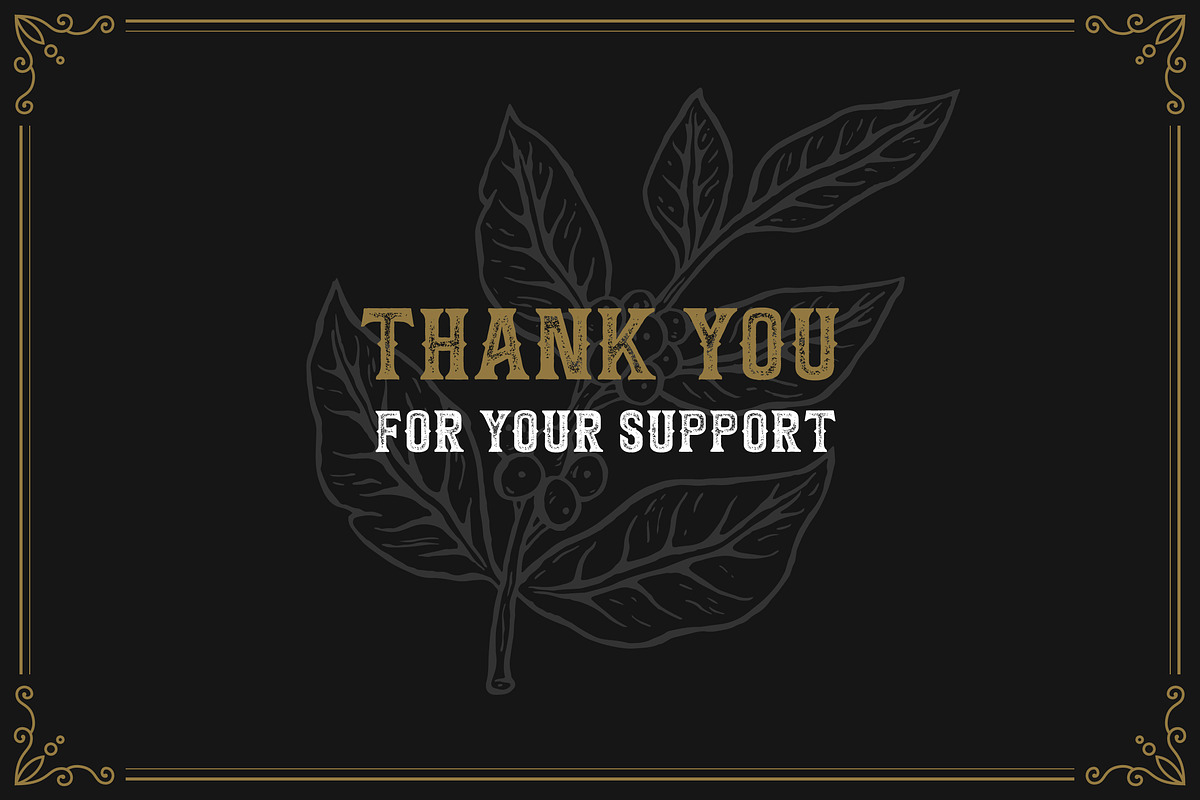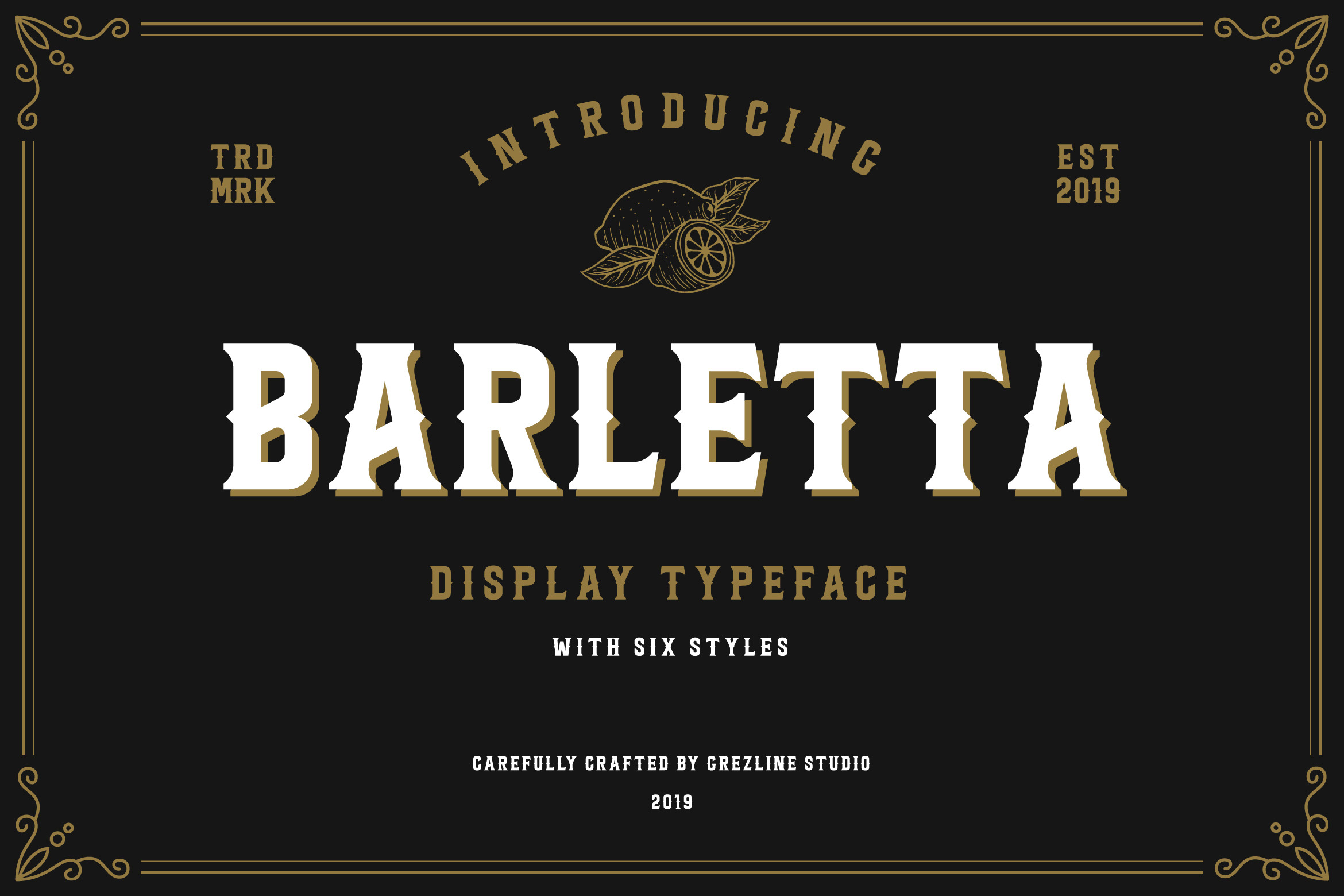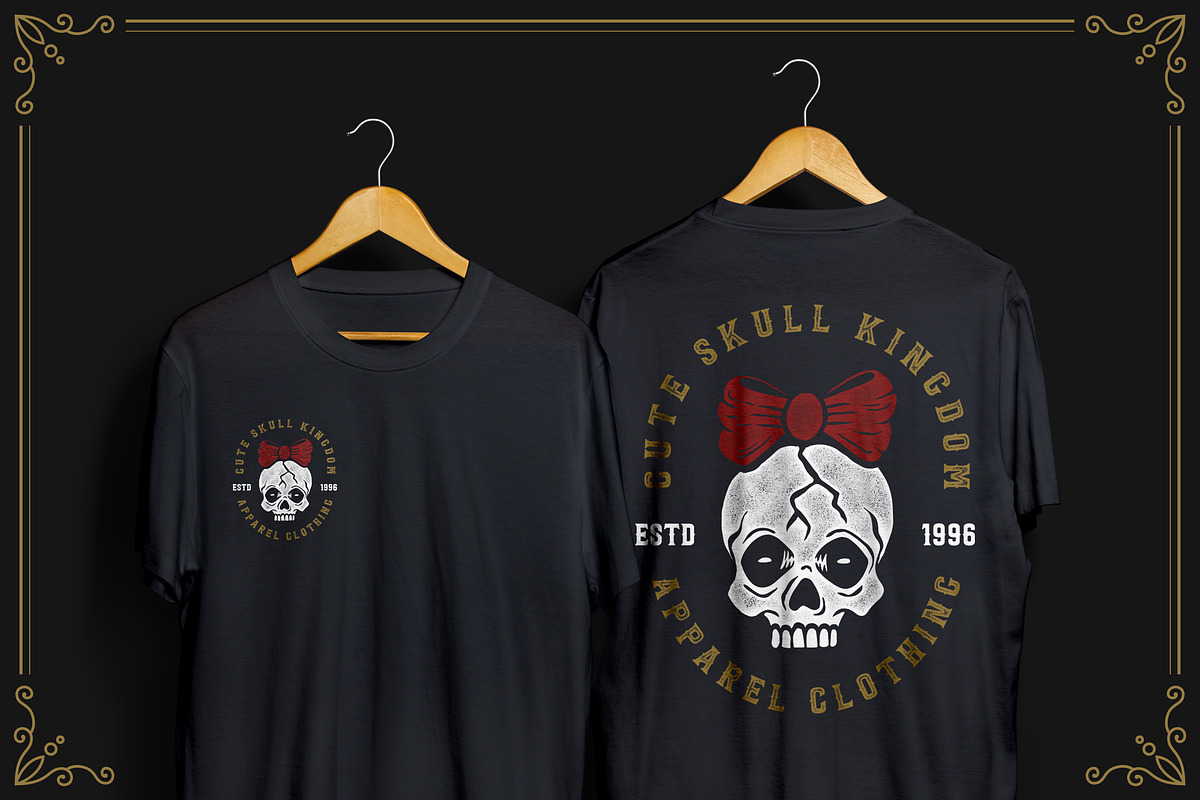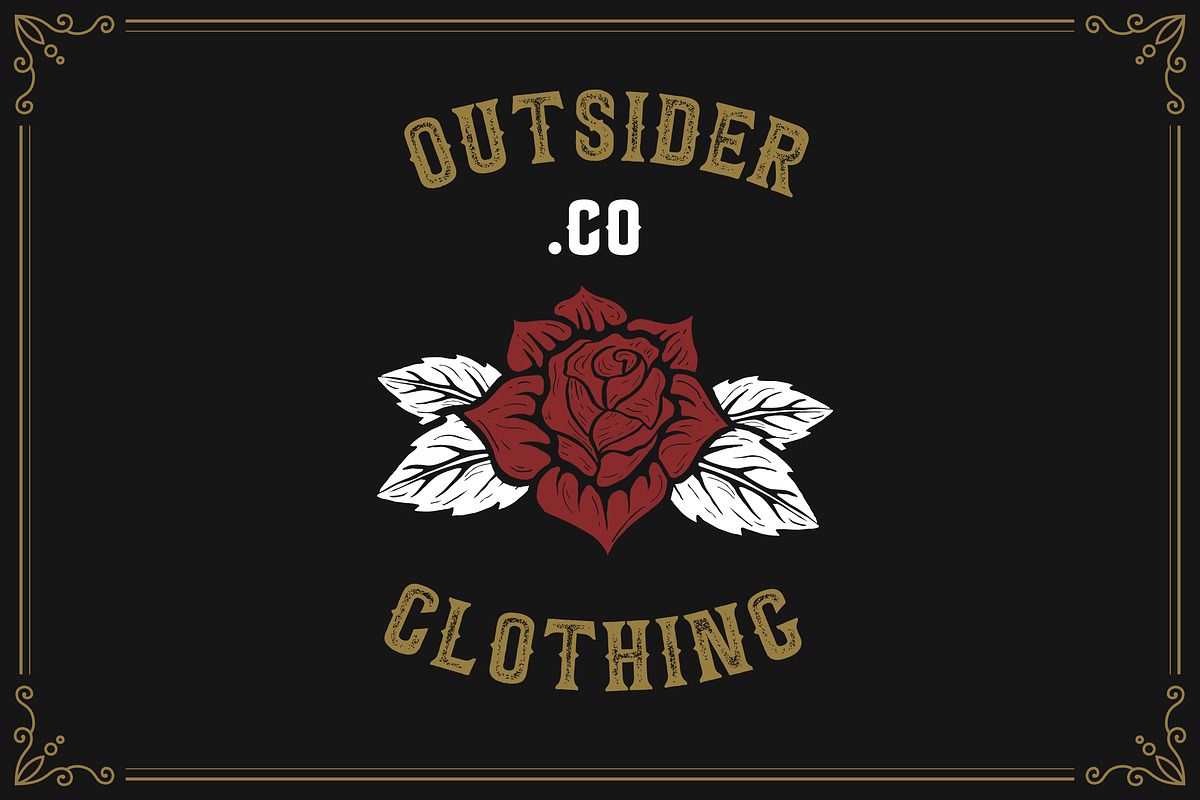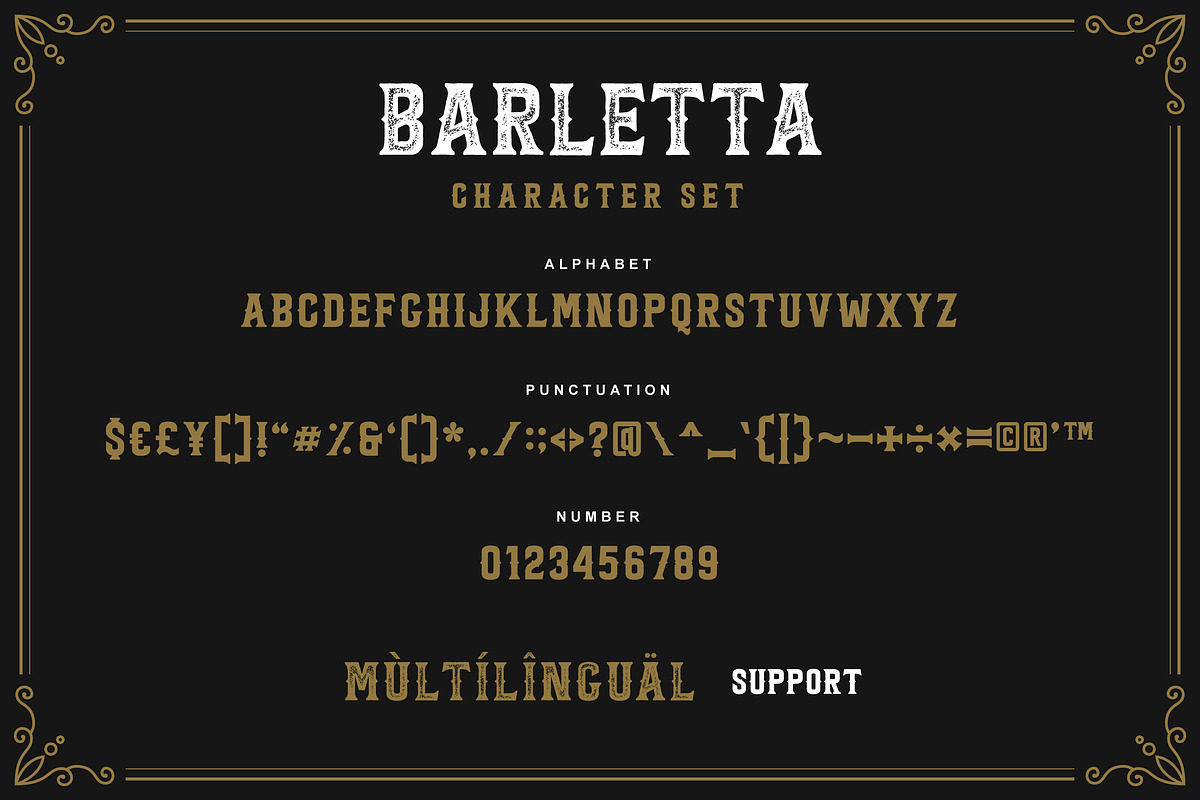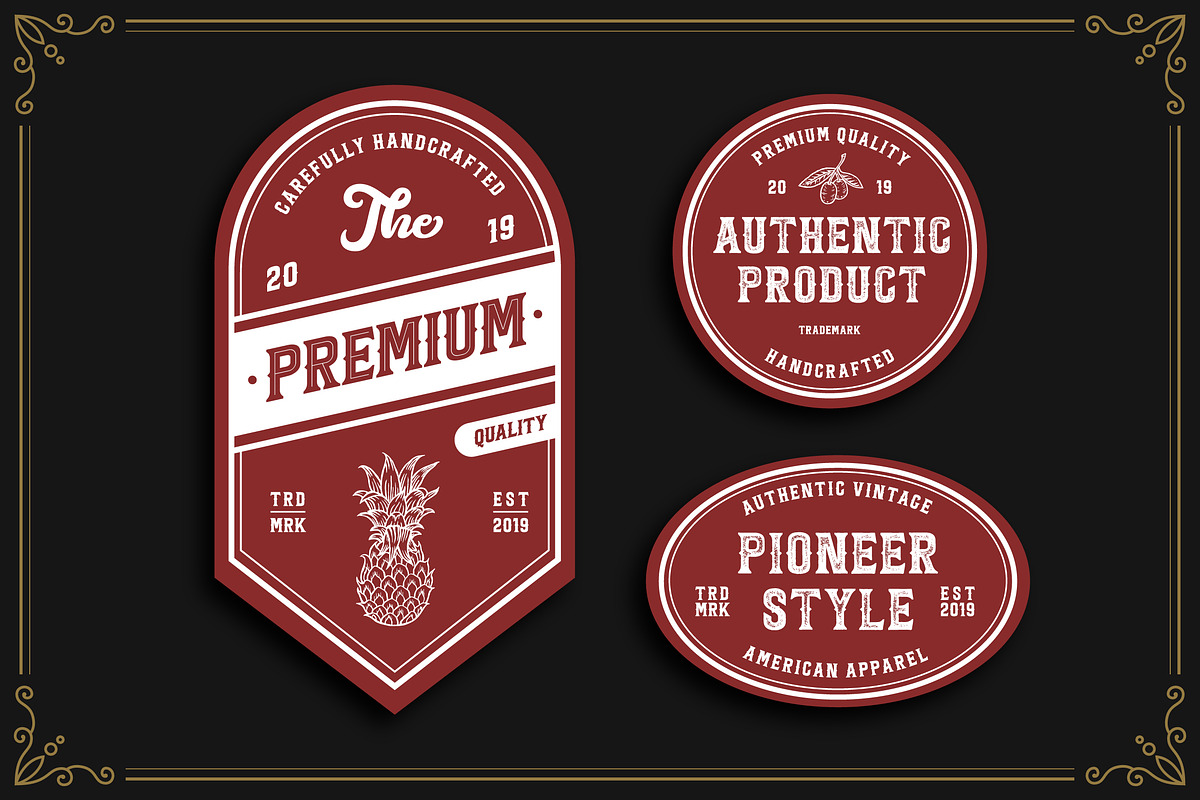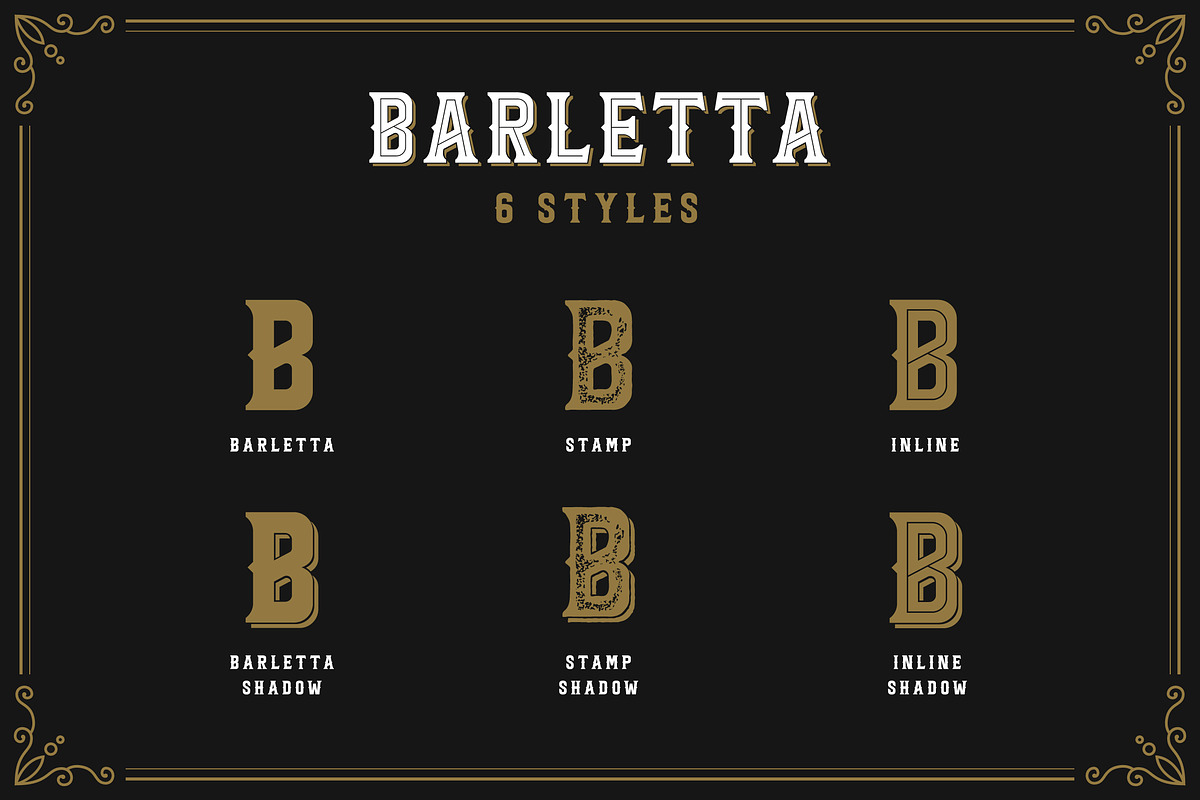
Barletta - Vintage Serif Font
Barletta - a new fresh unique serif font with western and clean looking. I crafted Barletta very carefully with minimal anchor point, to keep it look clean and ergonomic. Give your designs an authentic and aesthetic feel with Barletta font. Barletta is a font that you can use to make a vintage logo for branding, typography design, magazine or book cover, website header, product packaging, t-shirt design, label poster and many more.
- 6 Styles included
- Bonus Illustration and Badge Design
- Multilingual Language